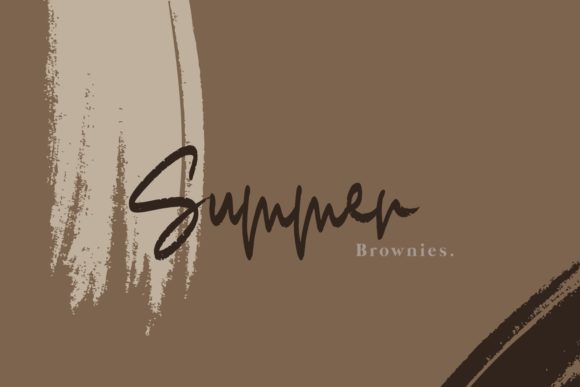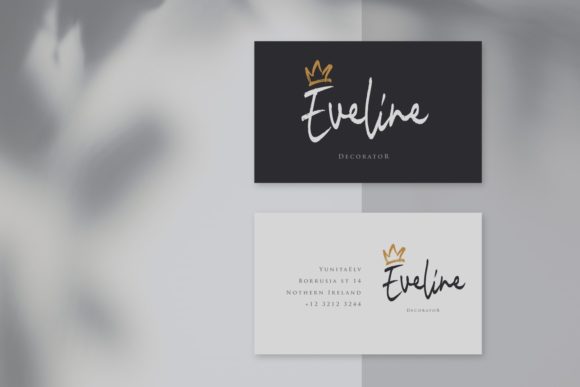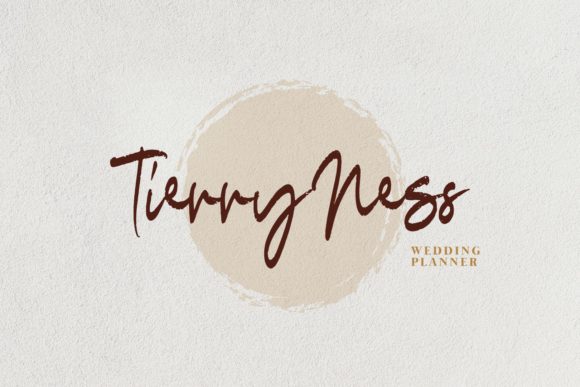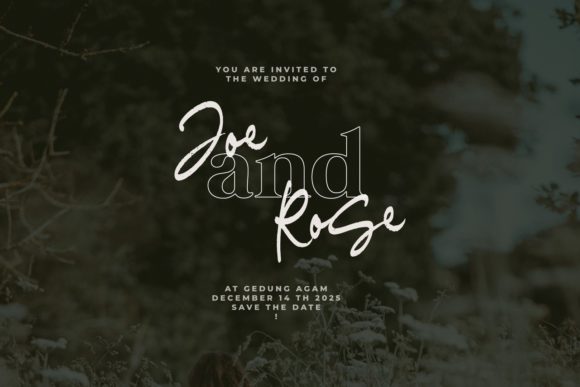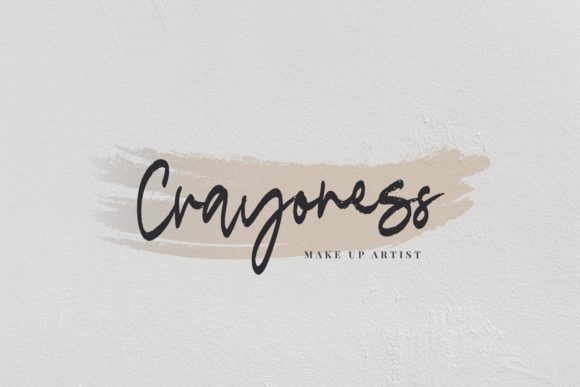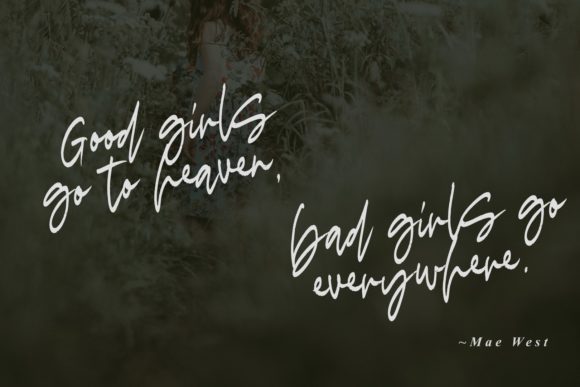
Introduction to Madigel Font
Madigel is a sweet and cool handwritten font with a casual feel.
Use it to add a personal charm to any design project .
Key Features of Madigel Font